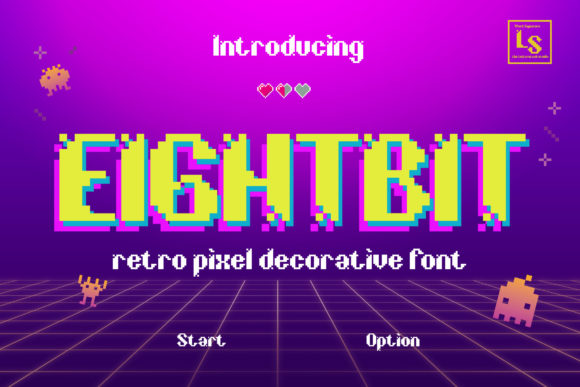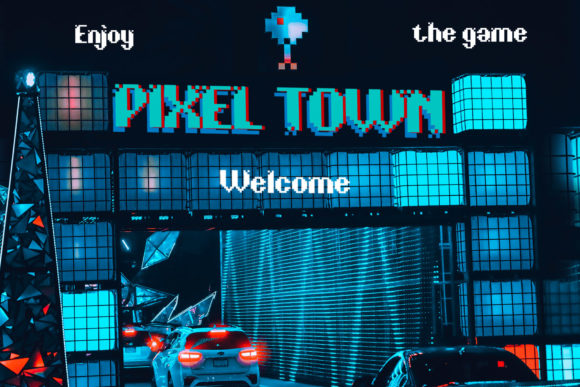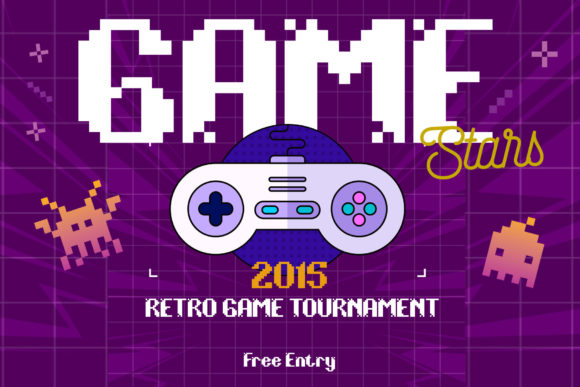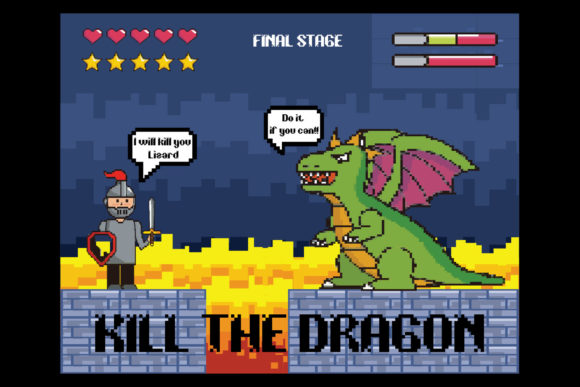
Eightbit Font: Retro Pixel Display Font for Nostalgic Designs
About the Eightbit Font
Get ready to be inspired by Eightbit Font, a fresh and dynamic typeface for modern creators. Eightbit is a unique display font, which was inspired by retro video game poster designs. Use this great font to add a unique touch to any of your projects!
Eightbit excels as a display font for headlines, posters, and branding projects requiring a retro-futuristic or arcade-inspired aesthetic. Its strong, pixelated forms work well in short, impactful text settings, adding a bold, playful energy. Avoid using it for body copy or UI elements; its low x-height and unusual letterforms are not suitable for extended reading.
Pairing Eightbit effectively requires considering its strong personality. A clean sans-serif like Helvetica Neue or a geometric sans-serif such as Futura would provide a contemporary counterpoint, grounding the retro feel. Conversely, a playful script font could amplify its nostalgic vibe, though careful consideration of weight and size is needed to avoid visual clutter.
The overall personality is energetic and nostalgic, ideal for projects relating to gaming, technology, or entertainment that need a vibrant, retro-inspired touch. Avoid using it in contexts demanding elegance or sophistication.
Eightbit Font Usage Examples
Eightbit Font Example